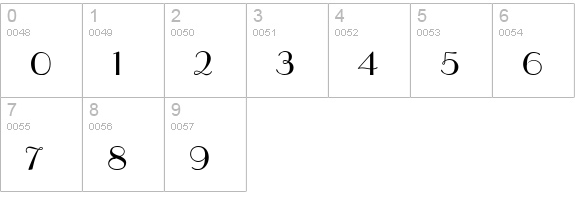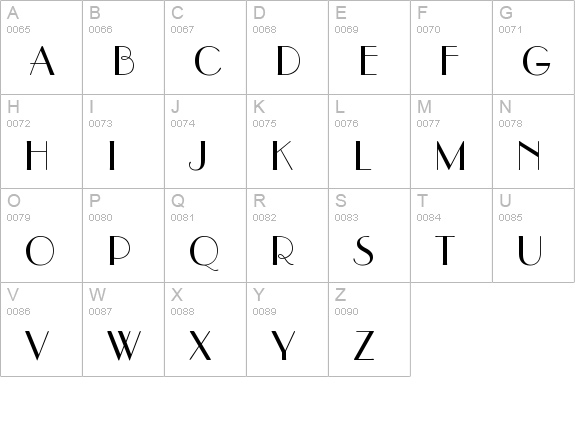
Paris Normal Font Details
Paris Normal is the standard, neutral variant in the Paris typeface family \xE2\x80\x94 well suited to general body text, paragraphs, and standard typographic work.
Paris Normal font is a stunningly elegant and sophisticated typeface that will add a touch of class to any design project. With its clean lines and graceful curves, this font captures the essence of Parisian chic and effortlessly exudes timeless beauty. The Paris Normal font is perfect for a wide range of applications, from luxury branding and high-end fashion magazines to elegant wedding invitations and stylish packaging designs. Its versatility allows it to be used in both print and digital media, ensuring that your message is conveyed with utmost refinement. What sets Paris Normal font apart is not only its exquisite design, but also its accessibility. This font is freely available to download at FontsMarket.com, making it a valuable asset for designers and creatives alike. Whether you are a professional designer or a hobbyist, this font provides you with the opportunity to create stunning visuals without any financial burden. With its wide range of characters and extensive language support, Paris Normal font allows you to express your creativity and communicate your message effectively across different cultures and languages. Its legibility ensures that your text is easily readable, while its unique personality adds a touch of sophistication to your designs. Whether you are looking to create a logo that oozes elegance, or you want to elevate your editorial layouts to new heights, Paris Normal font is the perfect choice. Its timeless design and free availability make it a must-have in any designer's toolkit. Download the Paris Normal font today from FontsMarket.com and unlock the endless possibilities of creating visually stunning and captivating designs.